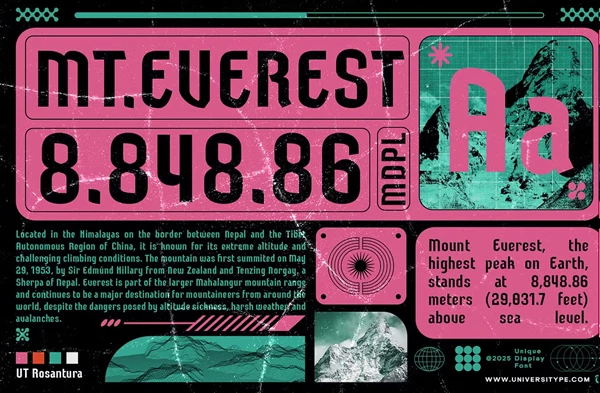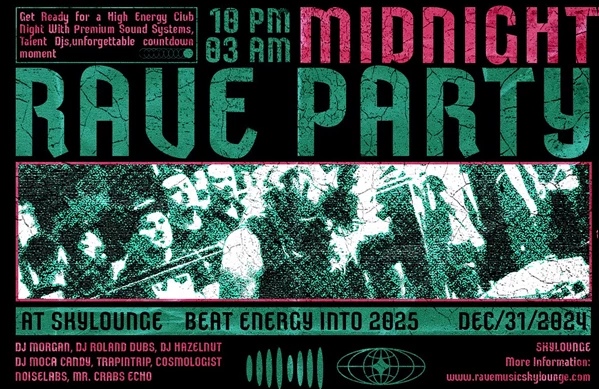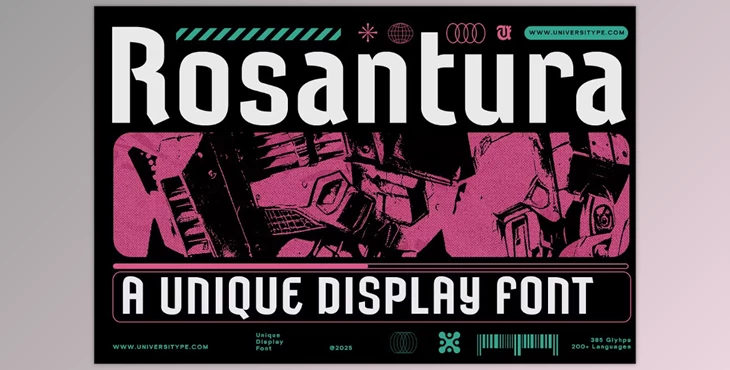
UT Rosantura : A Unique Display Font:
Blackletter Rosantura stands out as a unique display font since it combines the embellished intricacies of blackletter with the straightforward beauty of sans serif.
As with all display fonts, graphic artists, branding designers, and marketers alongside digital media professionals will find this font suitable for print designs and logos.
With over 200 languages catered to and 385 glyphs, UT Rosantura's versatility brings forth the power of inclusive design. Being available as OTF, WOFF, and TTF fonts gives further freedom to customize and strengthen design projects spanning across digital and print media, making it a timeless yet contemporary font to transform design work.